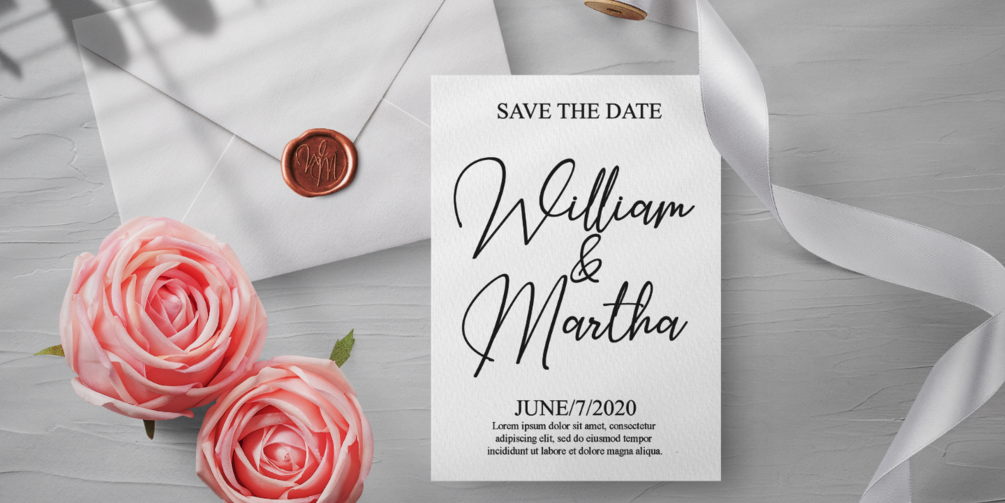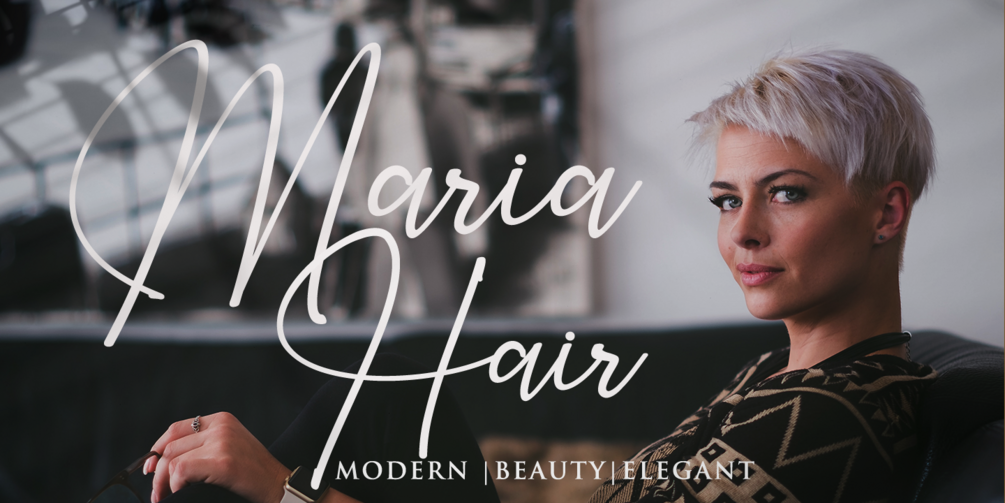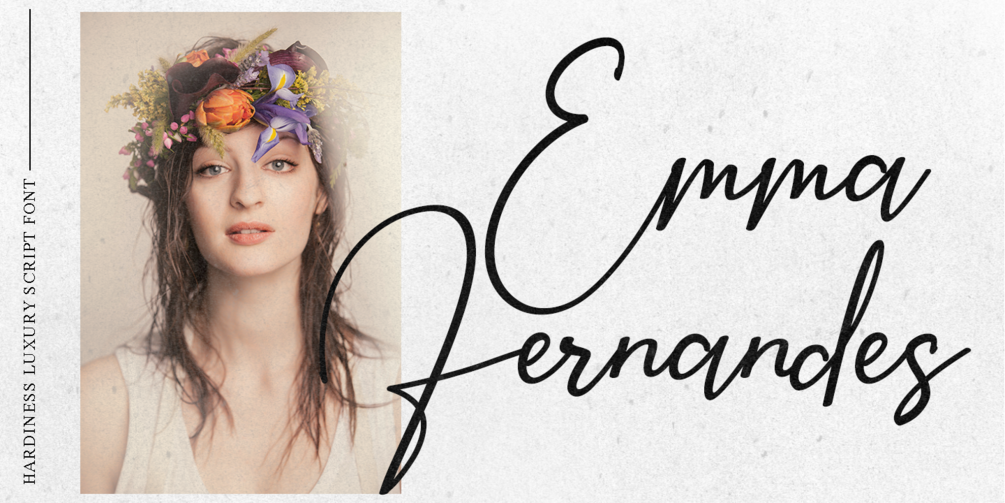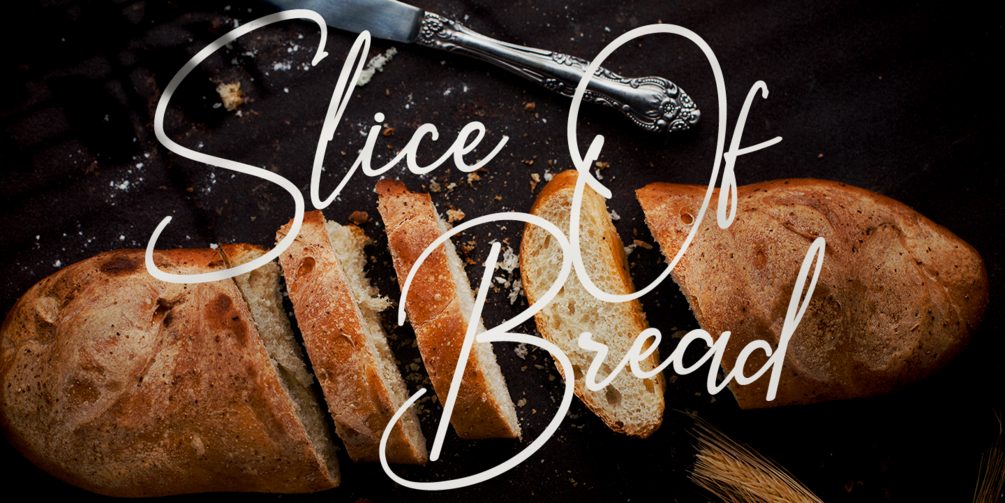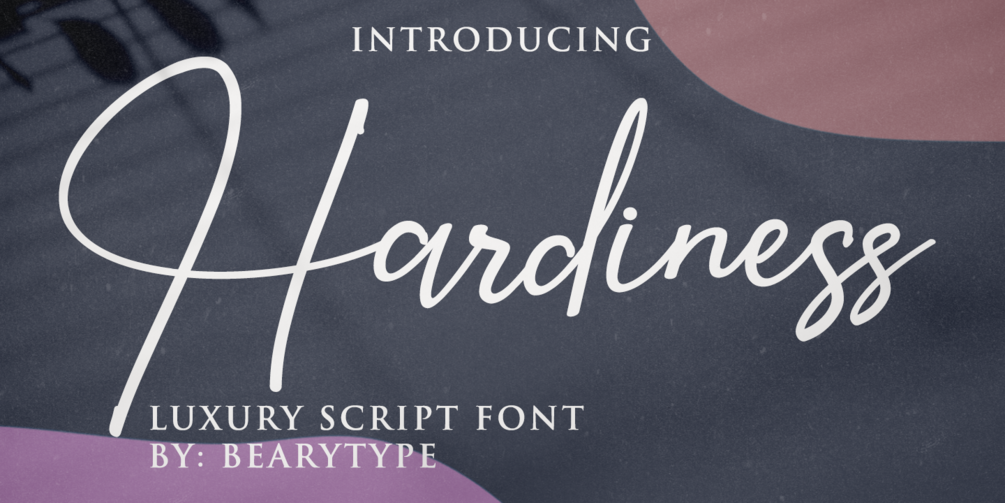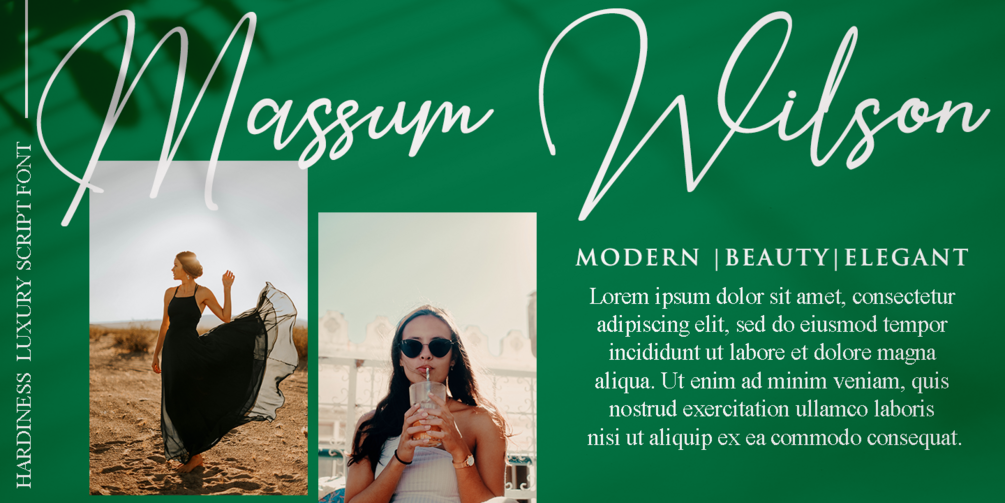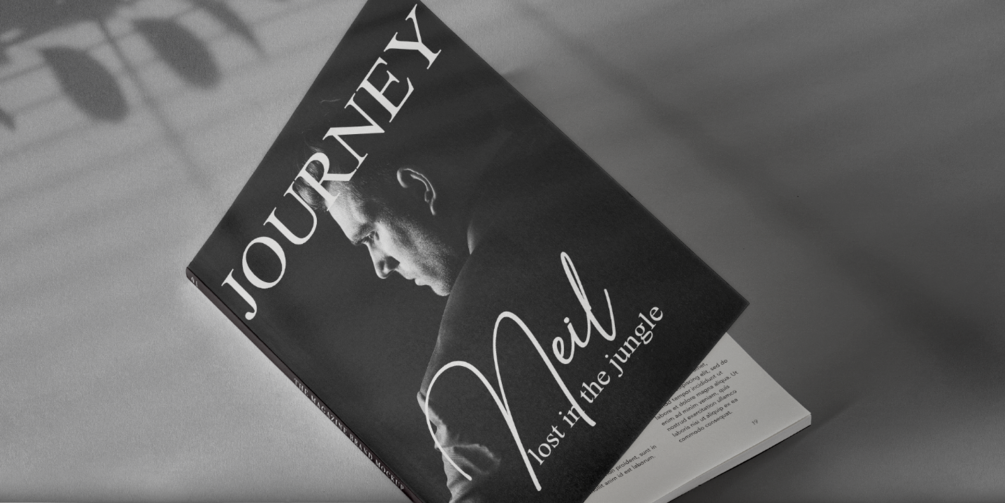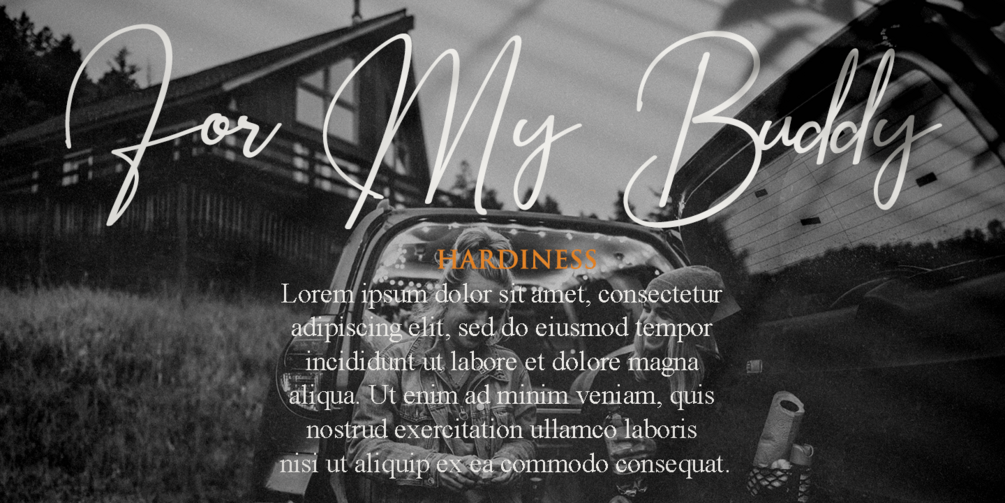
Hardiness
Hardiness – Elegant Hand Lettering Font
Hardiness is a stunning hand-lettering font with a natural and elegant style. Each letter is carefully handcrafted to bring a beautiful and artistic touch to any design project.
This versatile font is perfect for:
• Wedding invitations & special events
• Branding & visual identity
• Advertising & marketing materials
• Posters, greeting cards & product packaging
• Both classic and modern design projects
Why Choose Hardiness Font?
✔ Elegant, natural, and eye-catching design
✔ Includes ligatures for stylish typography
With Hardiness, your text will look professional, timeless, and visually captivating. Perfect for graphic designers, brand owners, and creatives who want to elevate their projects with a handcrafted lettering touch.
Make your designs unforgettable with Hardiness – the elegant hand-lettering font for every creative project!